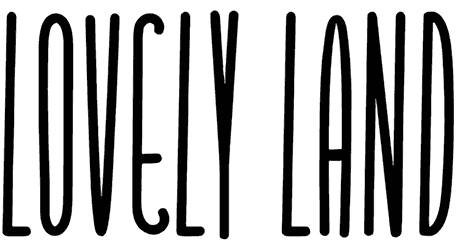
Lovely Land Font
If you are seeking a minimal and casual style for your design words that can promote the attractiveness of your design, this would be a good option for you. Lovely Land is a modern handwritten font with thin and tall condensed letters. Without an offer for lowercase, this tall font can make a distinct illustration for a lot of layouts, namely apparel, packaging, labels, etc.